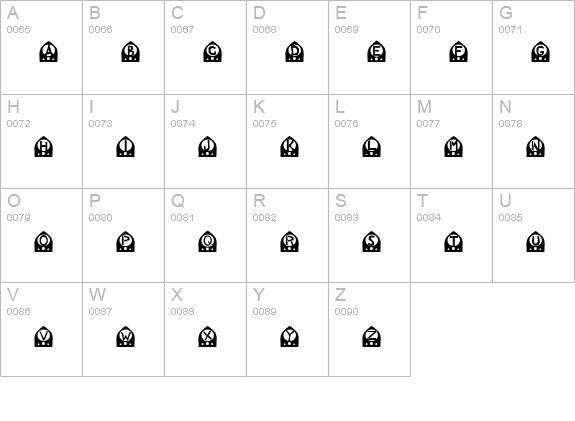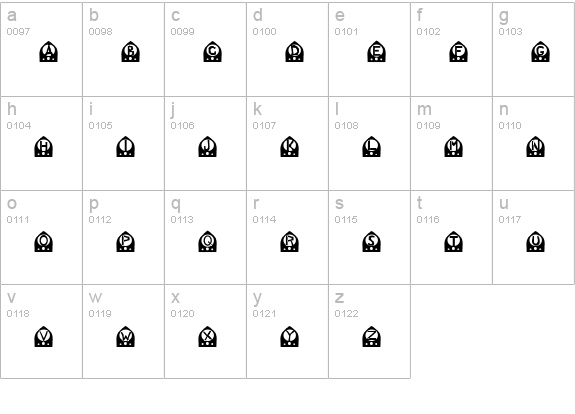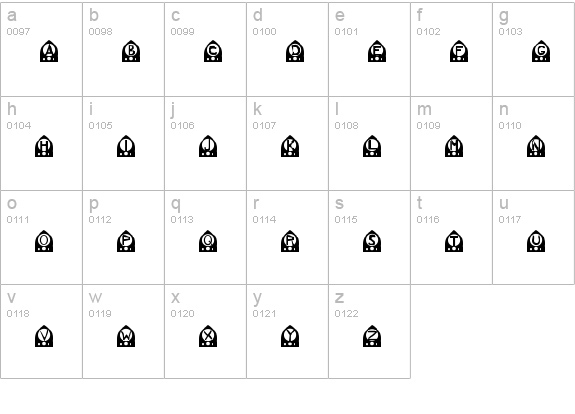
old time radio Font Details
The Old Time Radio font exudes a nostalgic charm reminiscent of the golden age of radio broadcasting. Its elegant and classic design captures the essence of bygone eras, making it perfect for projects that seek to evoke a sense of vintage allure. With its ornate details and timeless appeal, this font is sure to add a touch of old-world elegance to any design. Best of all, Old Time Radio font is freely available to download at FontsMarket.com. Whether you're working on a retro-themed project, designing invitations, or creating vintage-inspired logos, this font will bring a touch of nostalgia and sophistication to your work. Embrace the timeless beauty of Old Time Radio font and add a touch of vintage flair to your designs today.